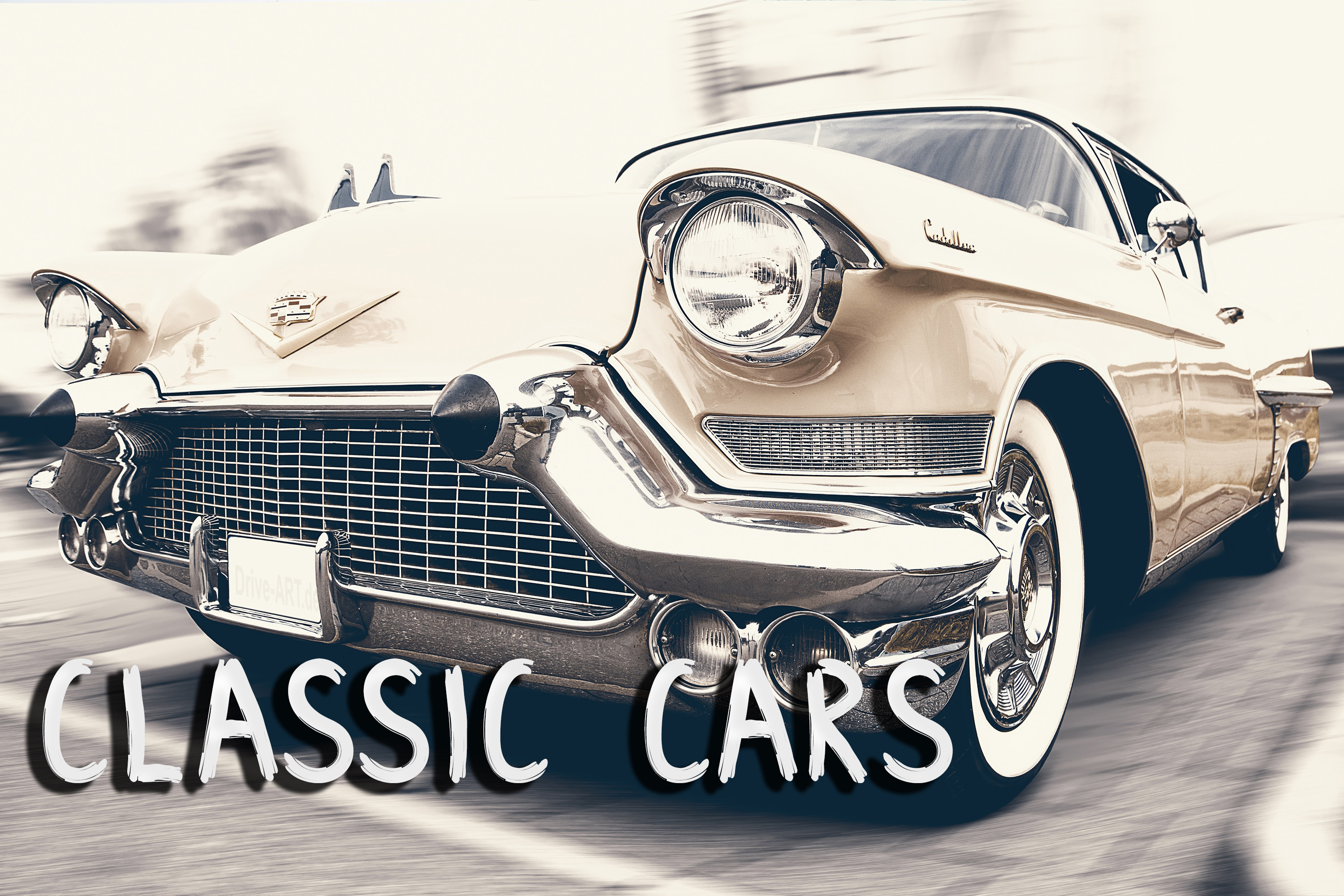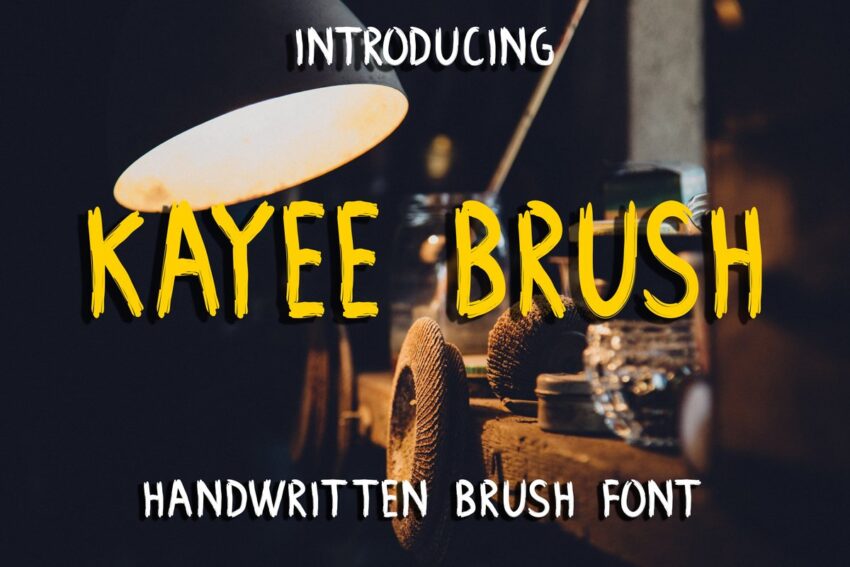
Introduction to Kayee Brush Font
Kayee Brush is a unique handwritten brush font, shaped like wooden fractures for a textured and authentic feel.
This brush font is crafted in a sans serif style for unique yet clean appeal .
Kayee Brush Font offers exceptional quality and versatility, making it a valuable addition to your design toolkit. Whether you’re creating for personal projects or commercial use, Kayee Brush Font delivers professional results.